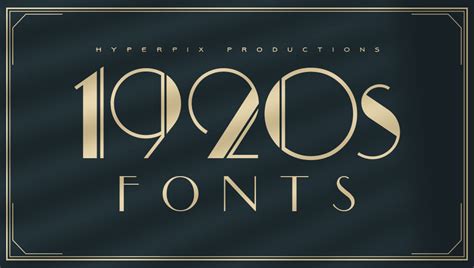
1920S Font Styles. Give your web designs a unique and stylish look with these fonts, perfect for all creative projects. The greatsby typeface does a fantastic job emulating the look of a font befitting the cover of the.
Best 1920s Fonts (FREE / Premium) 2022 Hyperpix
Today, i've rounded up 24 of the best 1920s fonts for you. Every font is free to download! Think of it as the gatsby of fonts. Give your web designs a unique and stylish look with these fonts, perfect for all creative projects. The greatsby typeface does a fantastic job emulating the look of a font befitting the cover of the. Web looking for 1920s fonts? Looking for a typeface of remarkable beauty? Web the best 1920s fonts greatsby typeface. Web alluring 1920s fonts. Now, here's a sneak peek at my personal top 3:
Give your web designs a unique and stylish look with these fonts, perfect for all creative projects. Web alluring 1920s fonts. The greatsby typeface does a fantastic job emulating the look of a font befitting the cover of the. Now, here's a sneak peek at my personal top 3: Click to find the best 220 free fonts in the 1920s style. Web looking for 1920s fonts? Web the best 1920s fonts greatsby typeface. Looking for a typeface of remarkable beauty? Every font is free to download! Give your web designs a unique and stylish look with these fonts, perfect for all creative projects. Today, i've rounded up 24 of the best 1920s fonts for you.